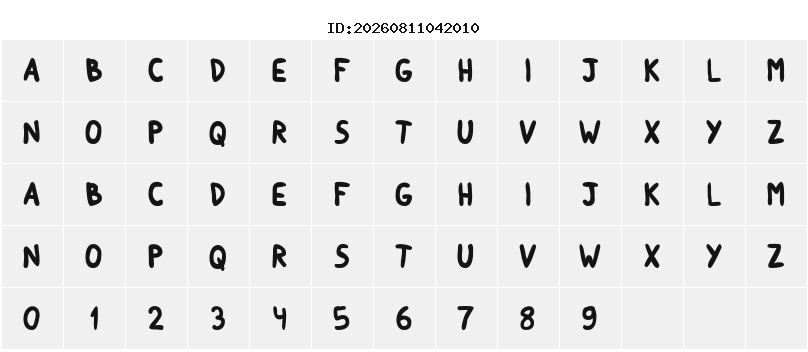
Round Irregularity Preview
• Font Name: Round Irregularity
• Full Font Name: Round Irregularity
About Round Irregularity.ttf
Round Irregularity.ttf is a modern, elegant sans-serif font designed for ultimate readability and visual harmony. Perfect for branding, headlines, web design, and print materials.